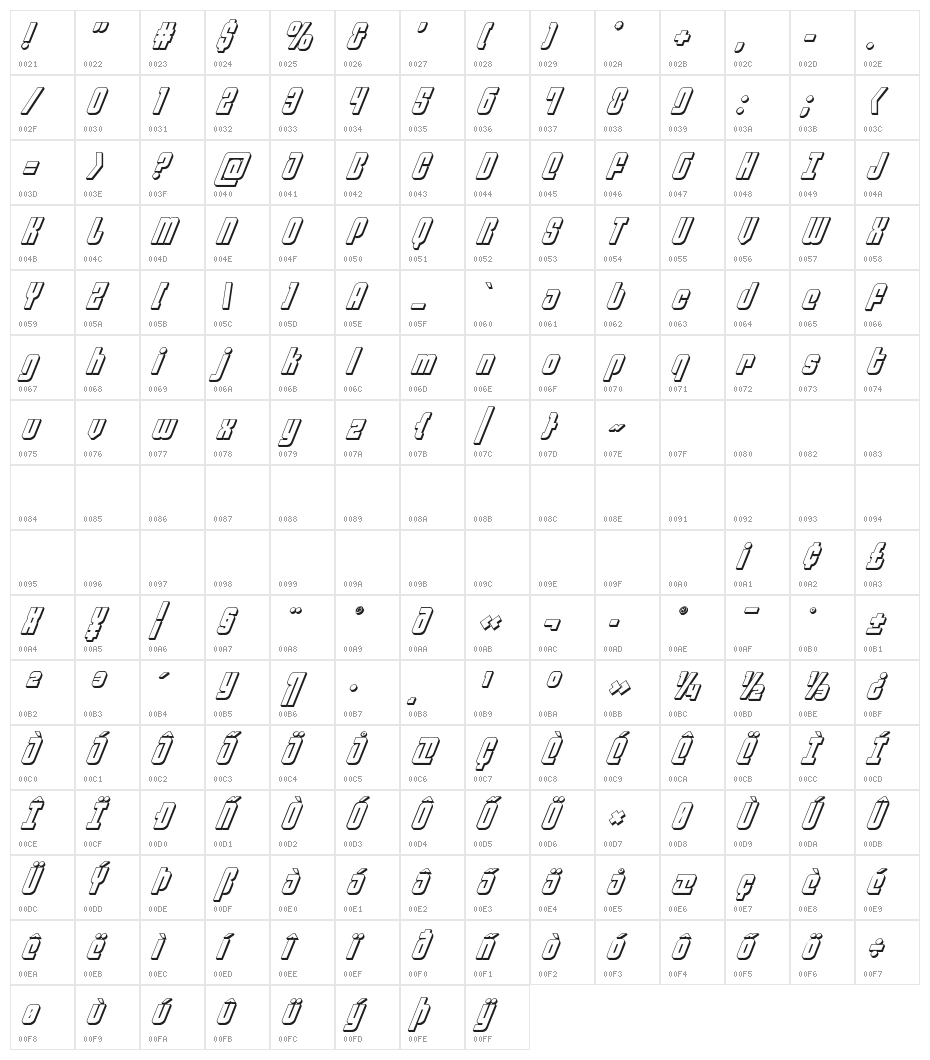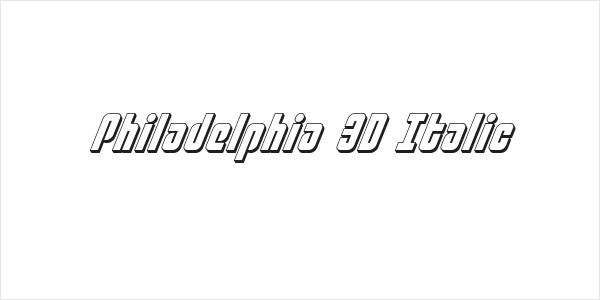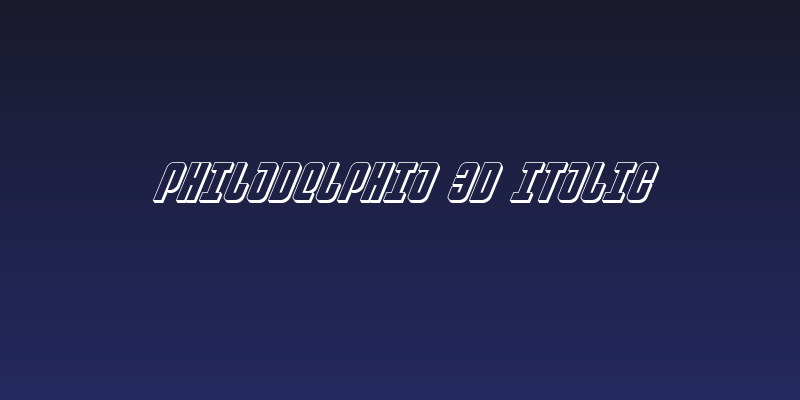
Philadelphia 3D Italic Font
Philadelphia 3D Italic Description
This font features a bold, three-dimensional appearance with a distinct italic slant, giving it a dynamic and modern look. The characters are outlined, creating a shadow effect that enhances the 3D illusion. The uppercase and lowercase letters maintain a consistent style, with sharp edges and a geometric structure. Numbers and special characters follow the same design principles, ensuring uniformity across all glyphs. The font's boldness and unique style make it stand out, making it suitable for attention-grabbing designs. Its italic nature adds a sense of motion and energy, perfect for projects that require a contemporary and impactful visual presence.
| Proposed Projects | Ideal for headlines, posters, logos, and any design requiring a striking and modern aesthetic. |